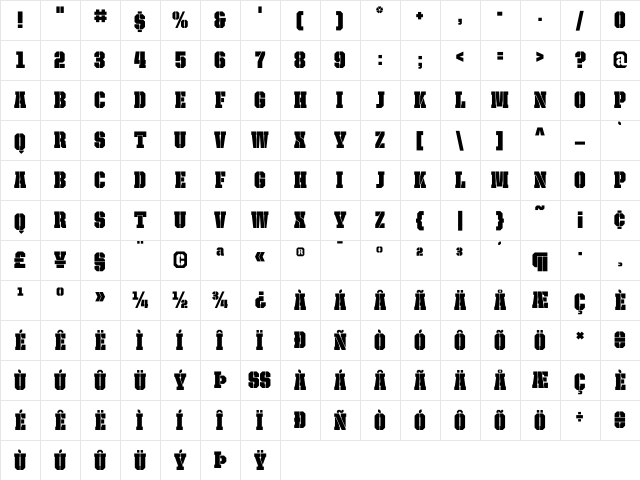
Complete United Serif Cond Stencil glyph index. Displaying only characters natively supported by United Serif Cond Stencil font.
United Serif Cond borrows the utilitarian aesthetic of stencil lettering, with its characteristic cutaways and no-frills construction lending an industrial edge.
Pro Tip: Use United Serif Cond at large sizes on packaging, posters, or apparel where the stencil cutaways read clearly. Avoid small sizes where those gaps become visual noise.